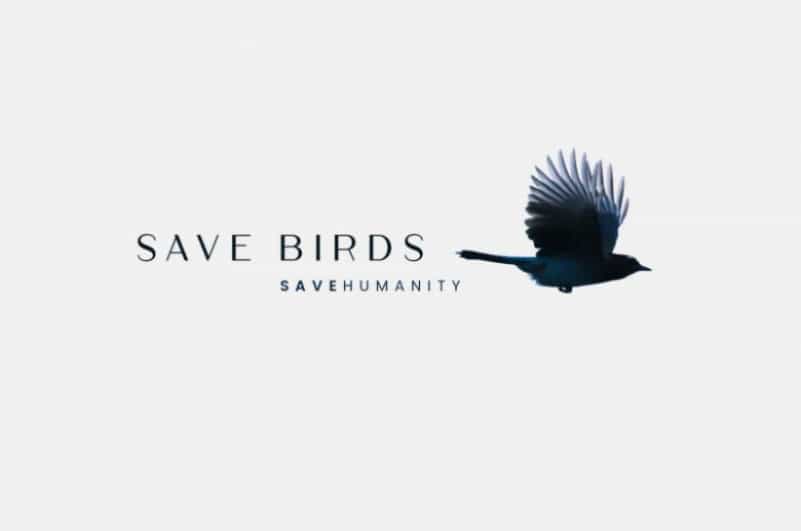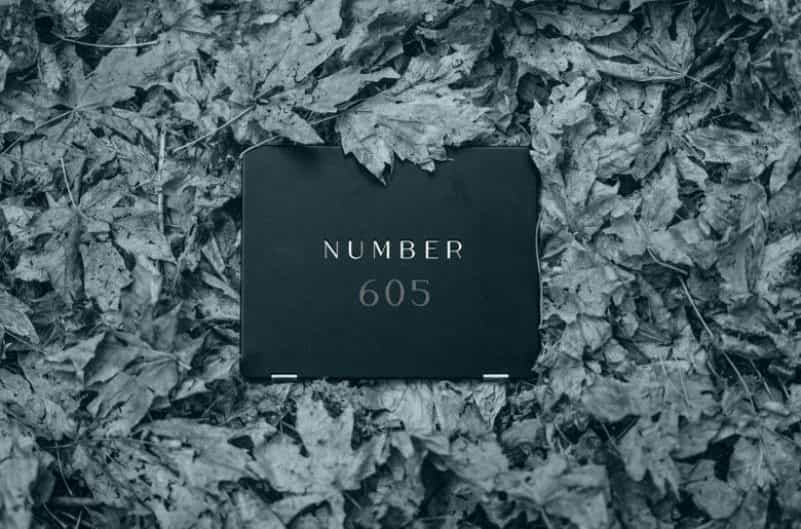
Introducing Cremona Font. This is a sans serif font that boxy and functional. It´s a memorable, fashionable, strong and stylish typeface. Mix and match the Rounded Regular style at your own discretion to get something very fresh and modern.